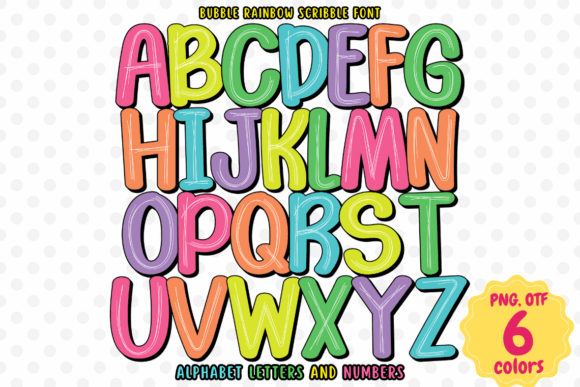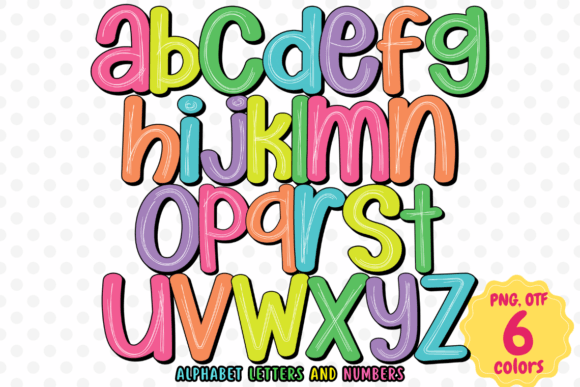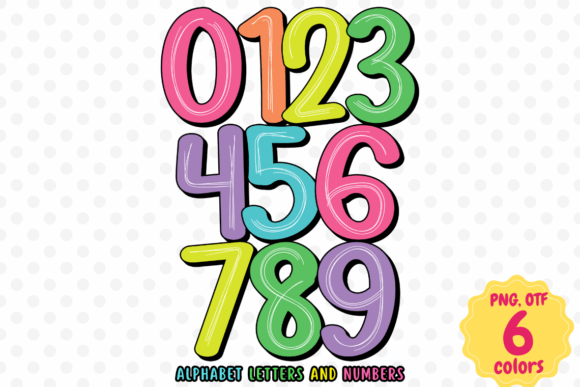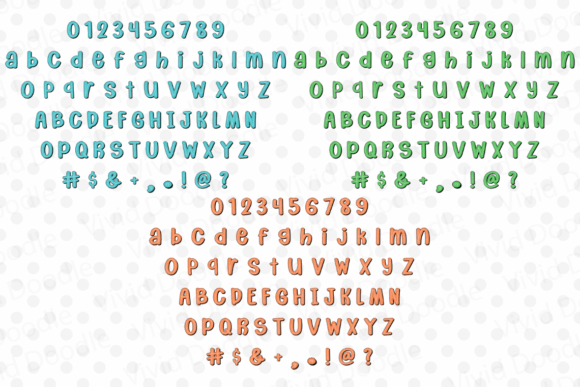
Bubble Rainbow Scribble Font
About the Bubble Rainbow Scribble Font
We are excited to introduce Bubble Rainbow Scribble Font, a must-have typeface for any serious designer. Unleash your creativity with the “Bubble Rainbow Scribble” handwritten font. This unique typeface combines playful bubble letters with a charming scribble effect, all wrapped in the vibrant colors of the rainbow. Perfect for adding a whimsical touch to children’s books, party invitations, posters, greeting cards, and more, “Bubble Rainbow Scribble” brings a delightful burst of color and joy to any project. Make your designs stand out and captivate your audience with the lively and fun “Bubble Rainbow Scribble” font!